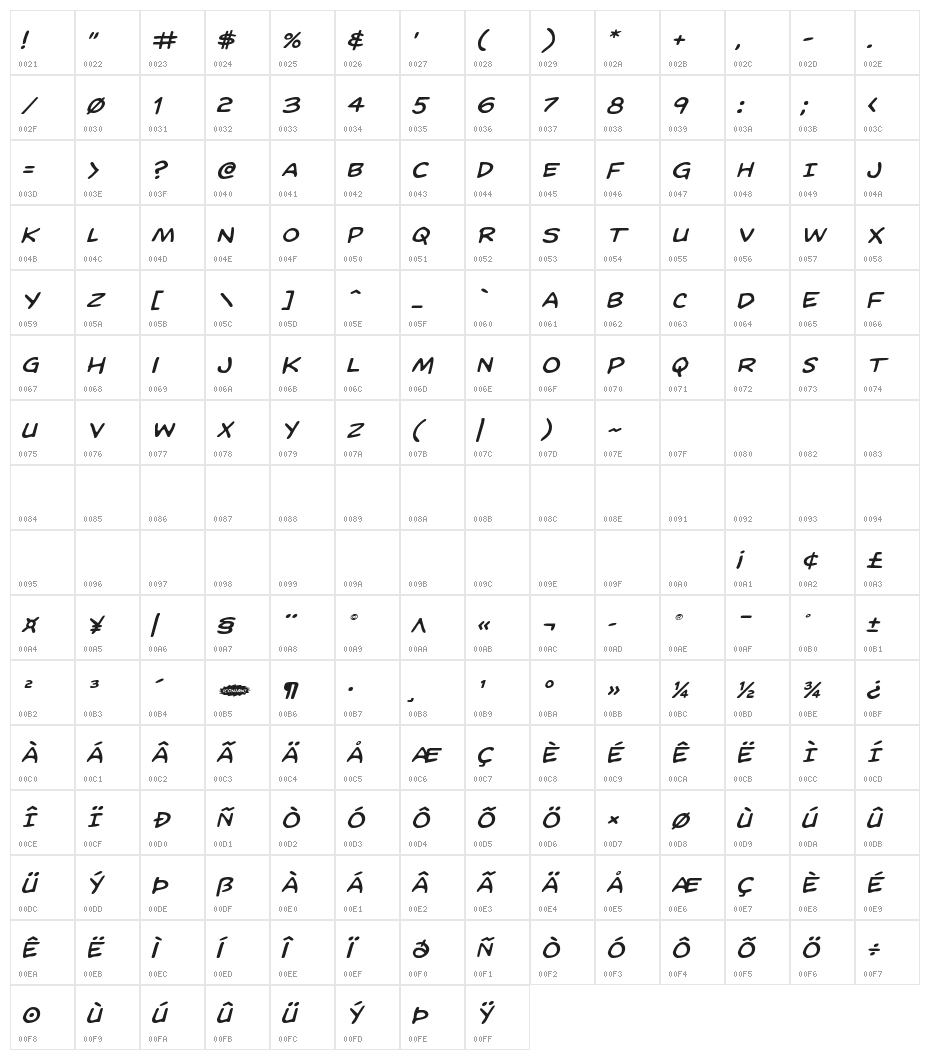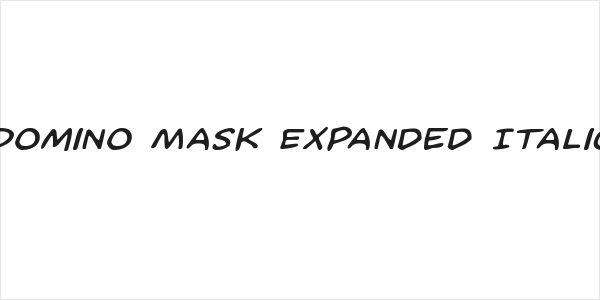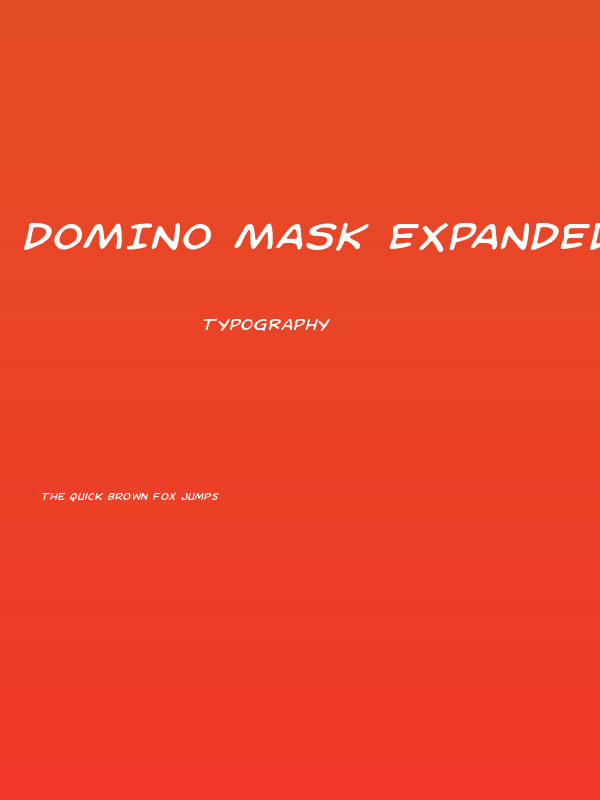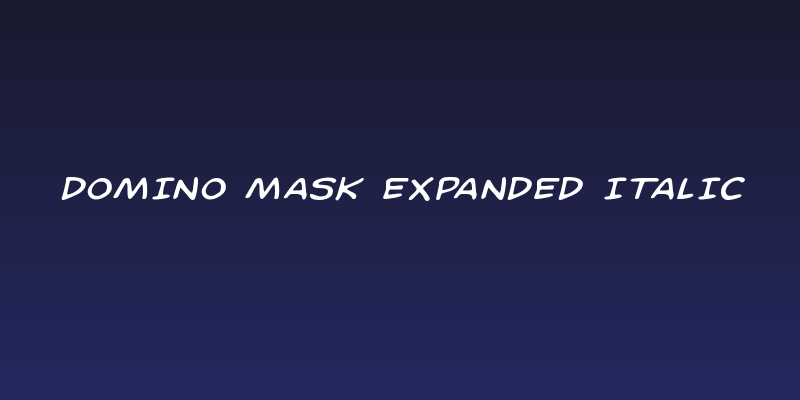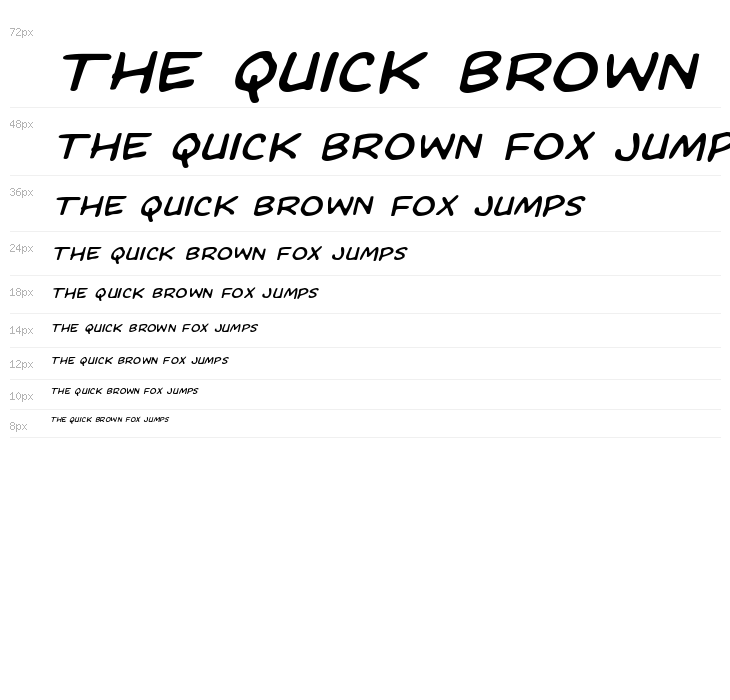
Domino Mask Expanded Italic Font
Domino Mask Expanded Italic Description
This font features a playful and dynamic style with a handwritten appearance. The characters are slightly slanted, giving an italicized look that adds a sense of motion and energy. The strokes are smooth and rounded, contributing to a friendly and approachable feel. The expanded width of the letters provides a sense of openness and readability, making it suitable for various design contexts. The font includes a full set of uppercase and lowercase letters, numerals, and a range of special characters, ensuring versatility in use.
| Proposed Projects | Ideal for creative projects such as greeting cards, invitations, posters, and branding materials that require a personal and lively touch. |